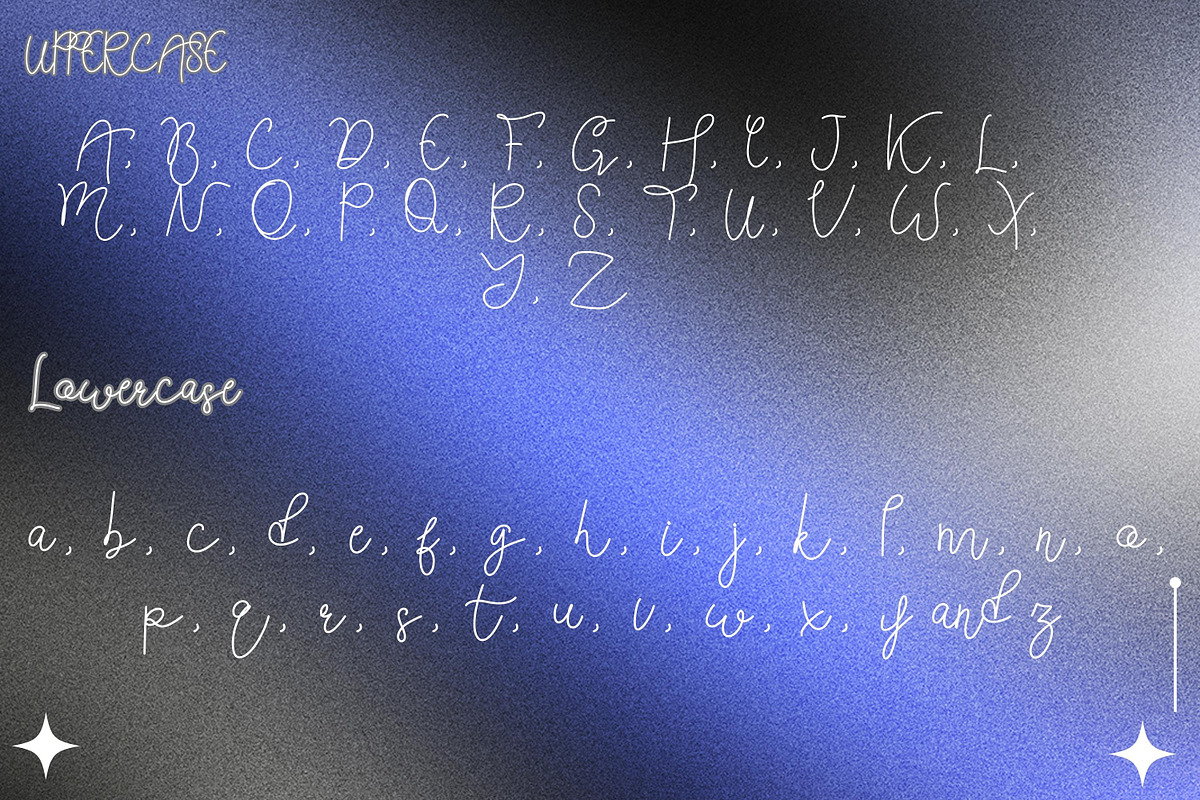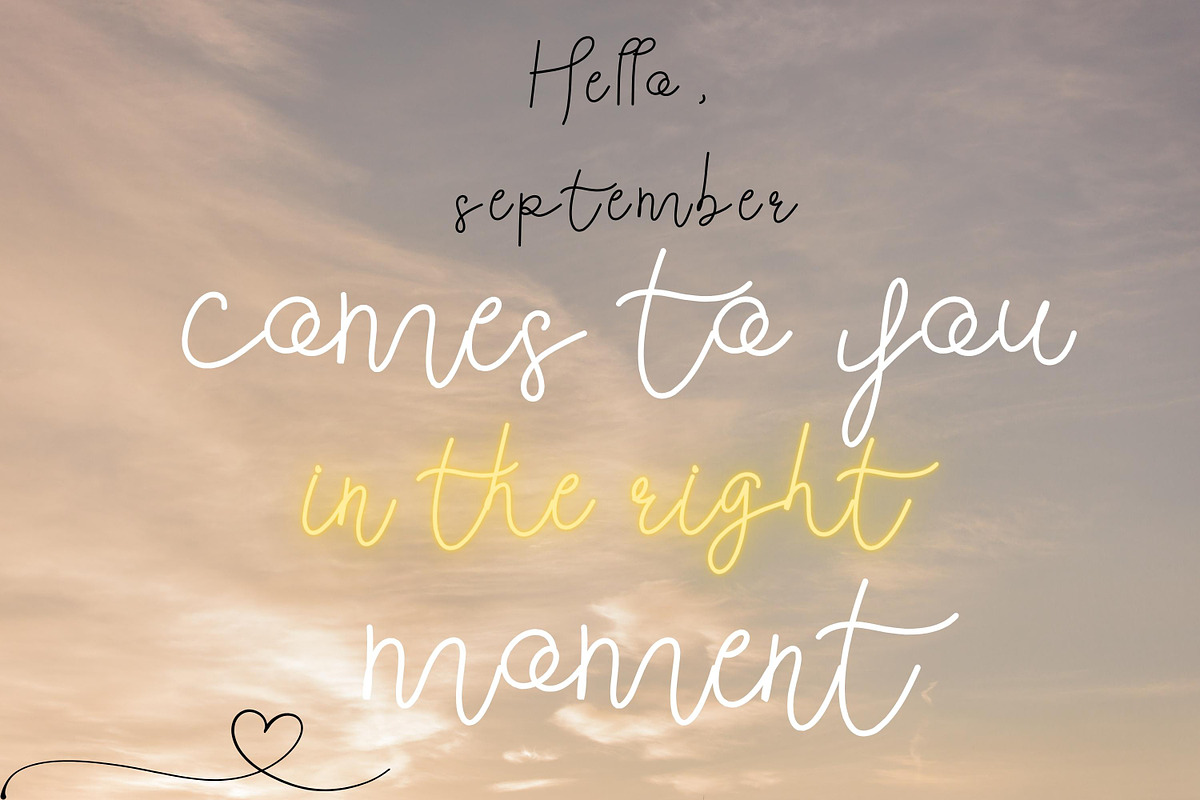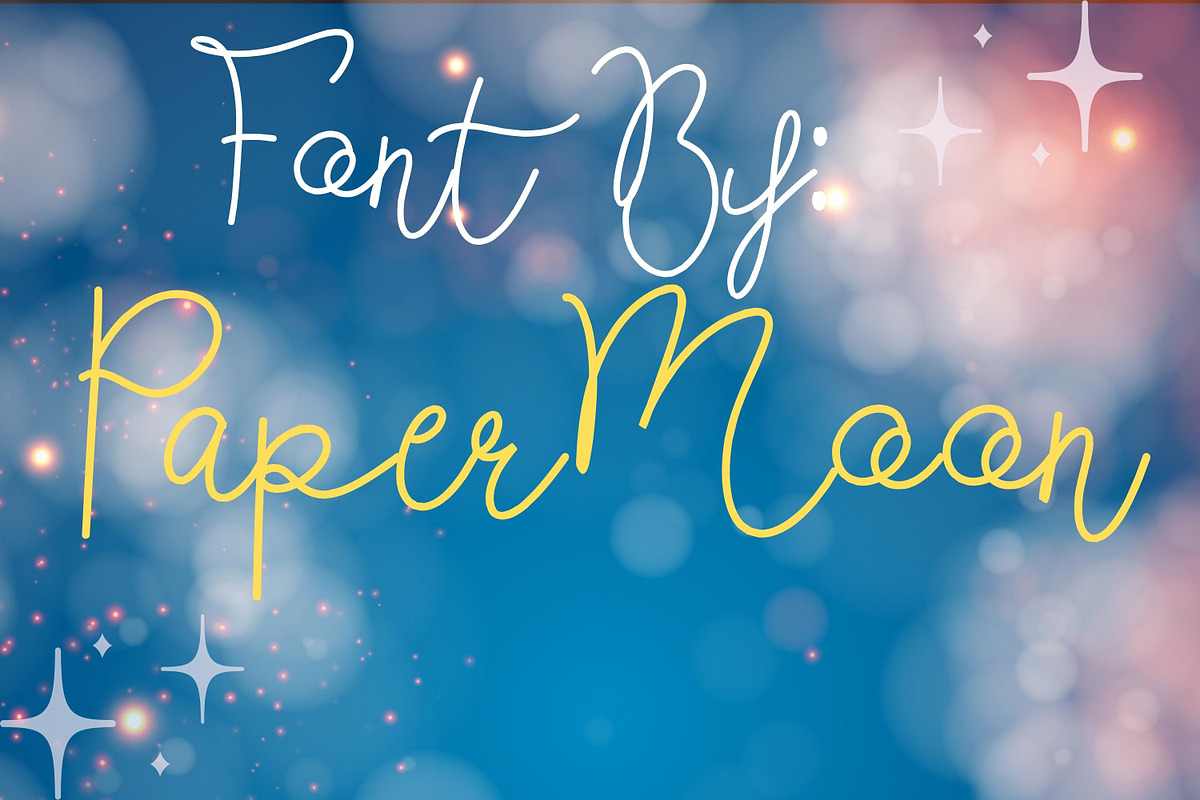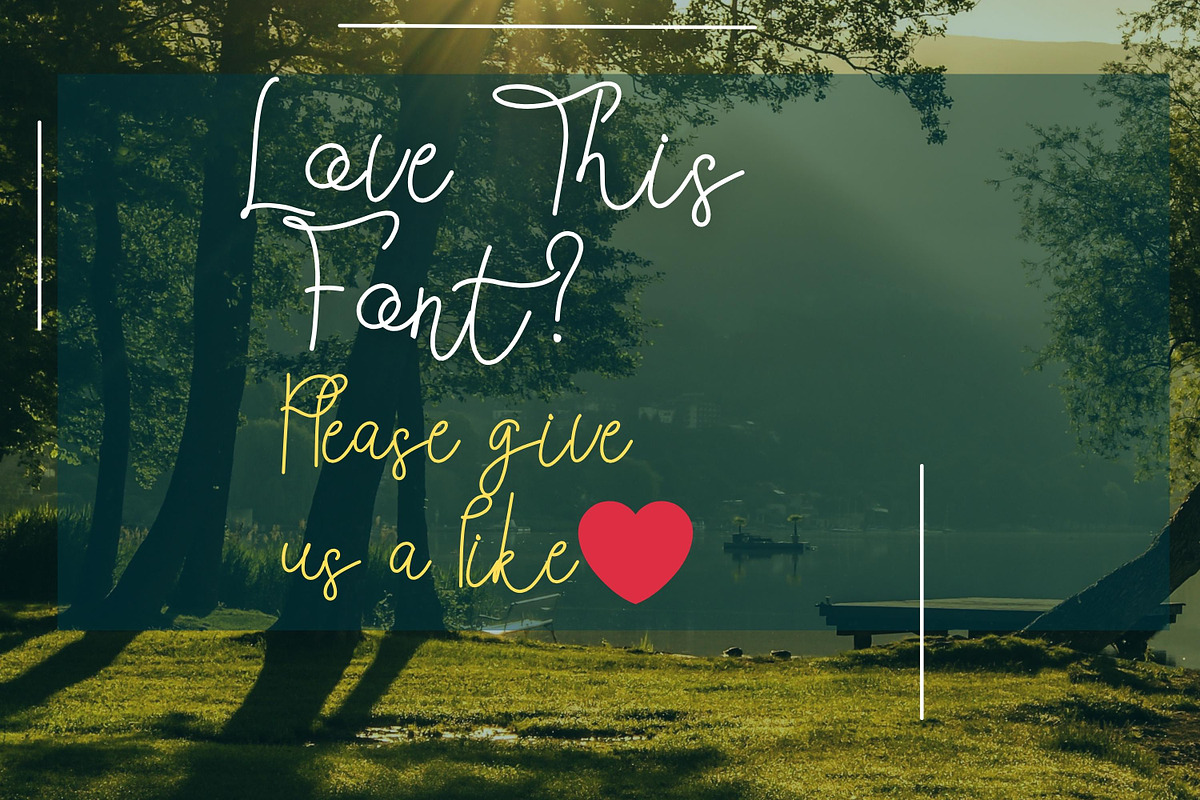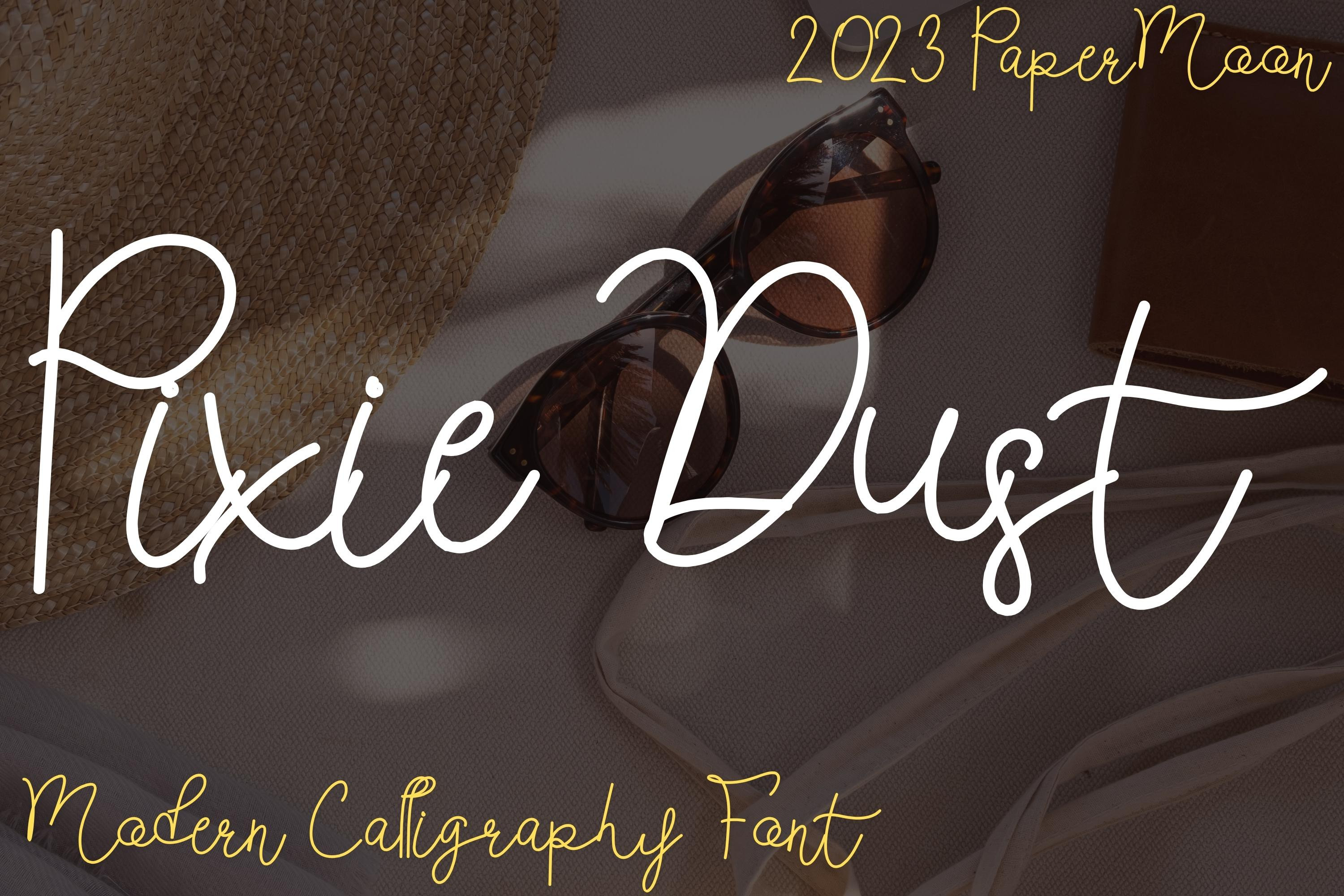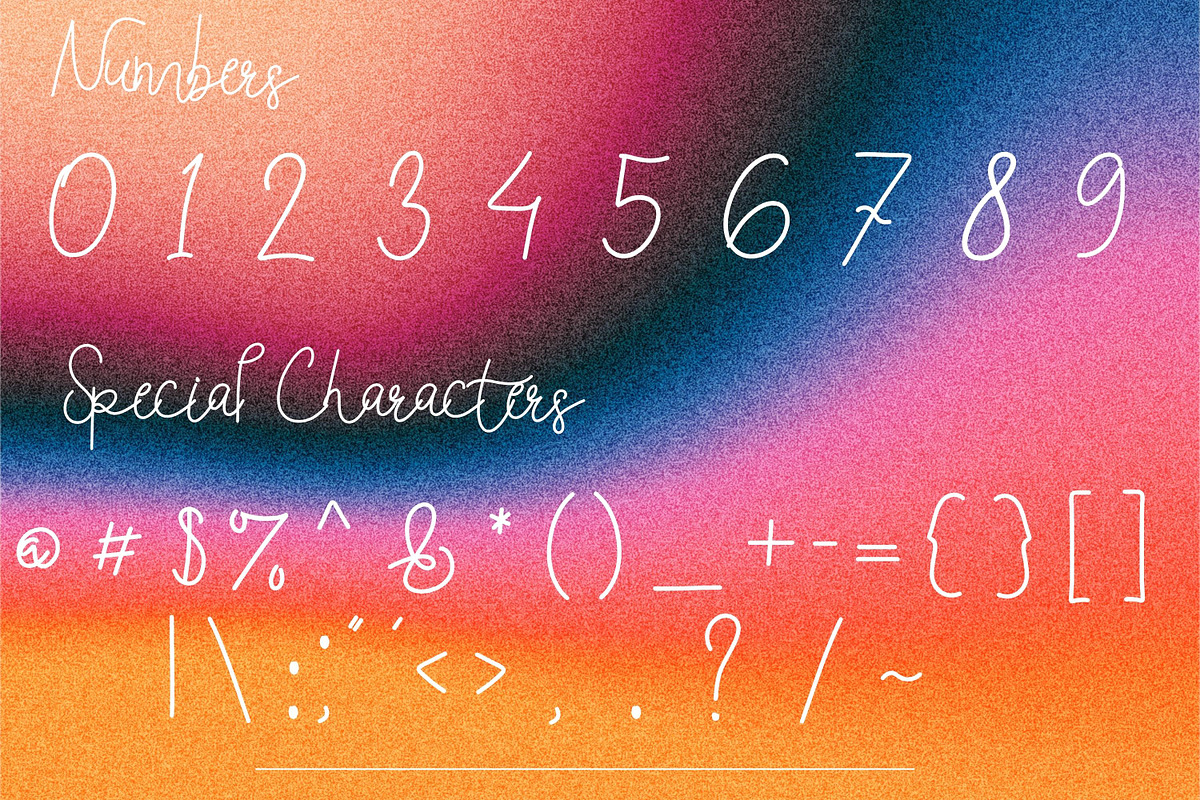
Pixie Dust: Handwriting Font
We're delighted to present our latest font, Pixie Dust Font.
Pixie Dust is a meticulously crafted handwriting script font, coming to you from our creative studio. The artistic minds behind this beautiful typeface. Pixie Dust Font is an exclusive script font with a graceful monoline style. It boasts a captivating character set, meticulously designed with well-spaced and kerned letters. This font embodies an elegant, vintage, stylish, sophisticated, and classic pen brush calligraphic handwriting style, setting it apart as a unique and distinctive choice.
Pixie Dust Font is a fantastic fit for a wide array of projects, including branding, logos, stationery, business cards, signage, flyers, brochures, and more. It harmonizes seamlessly with a diverse range of industries, from weddings and events to real estate, architecture, law firms, floristry, gardening, makeup artistry, travel, hotels, and the world of music.